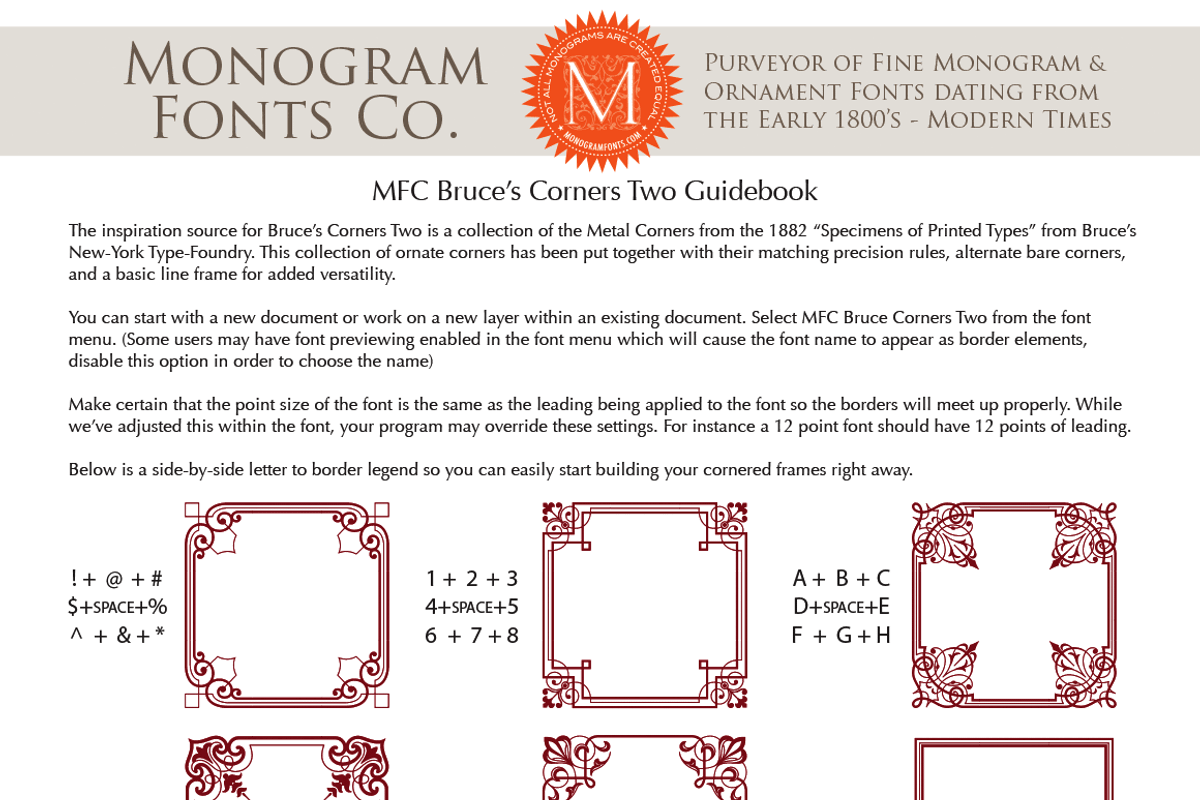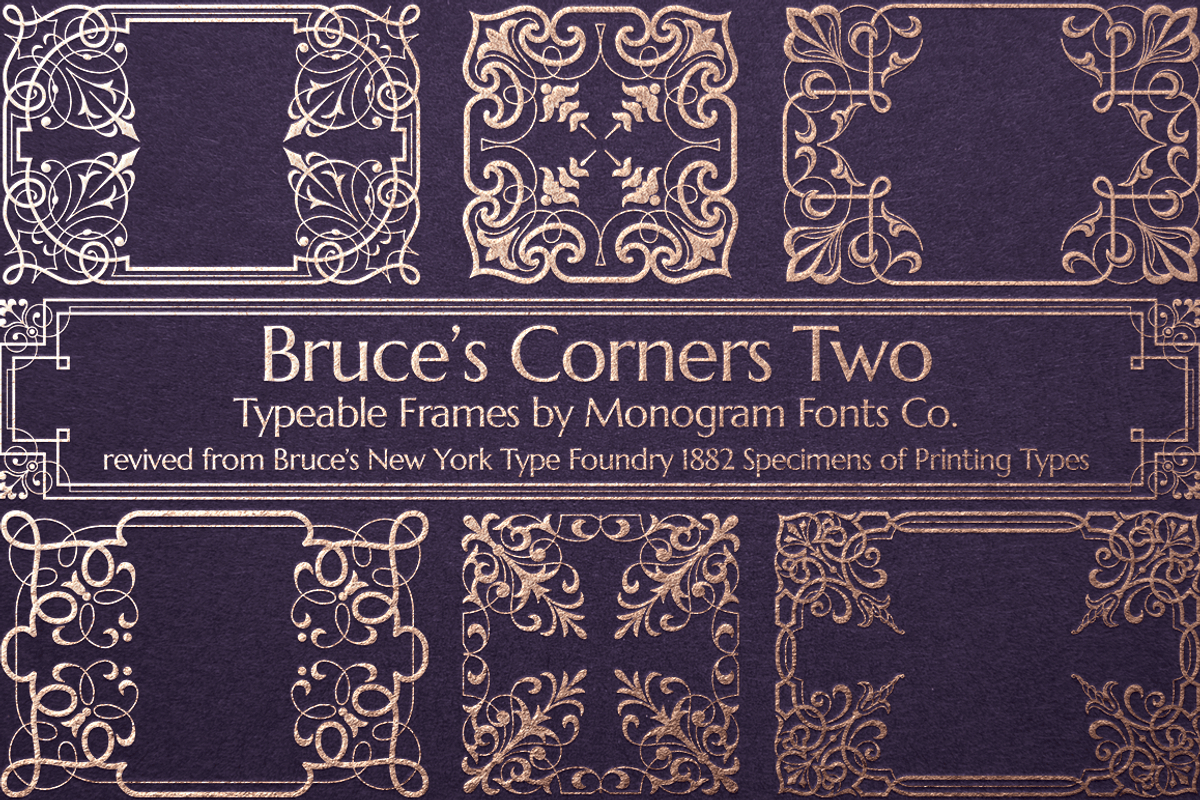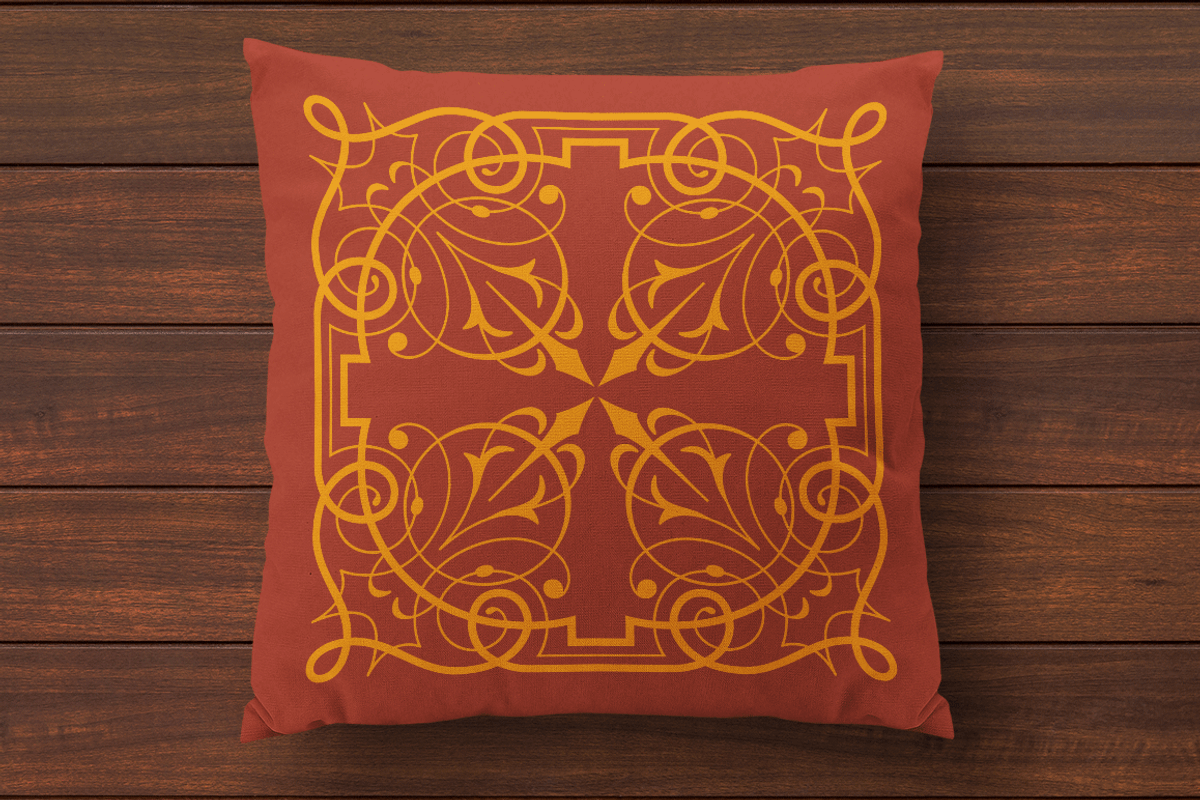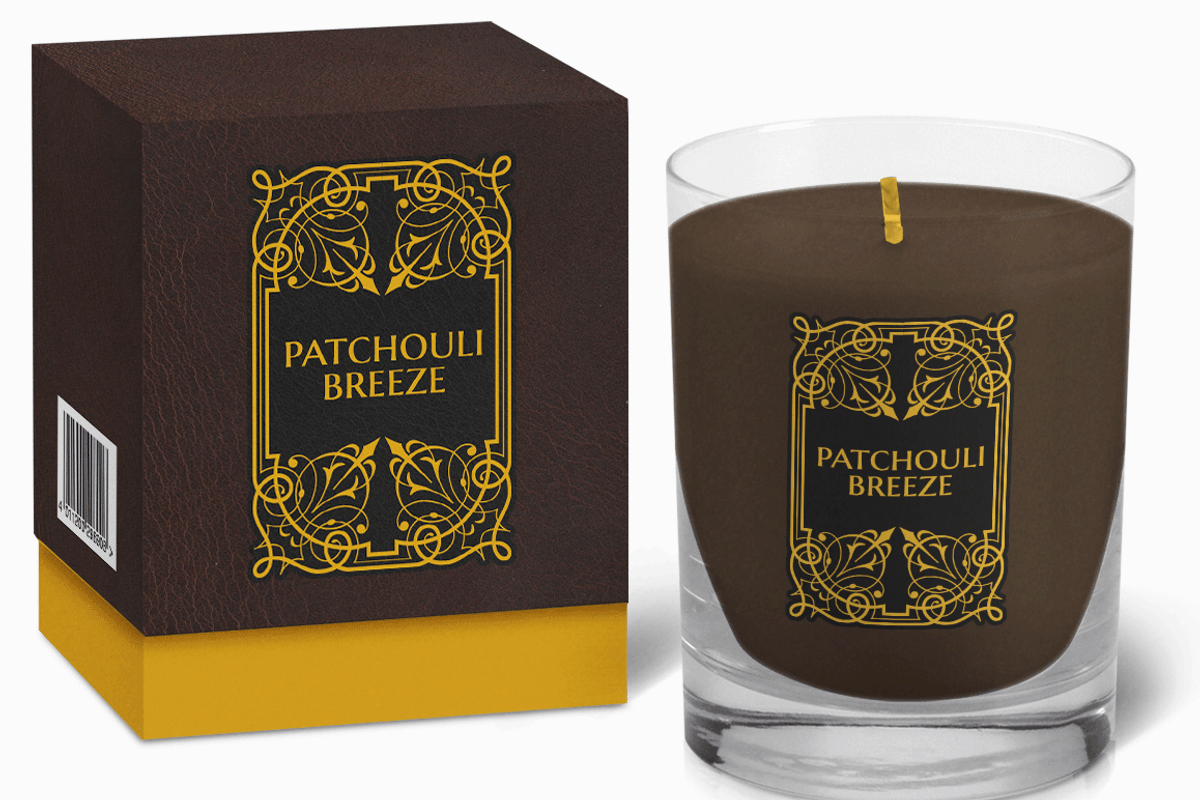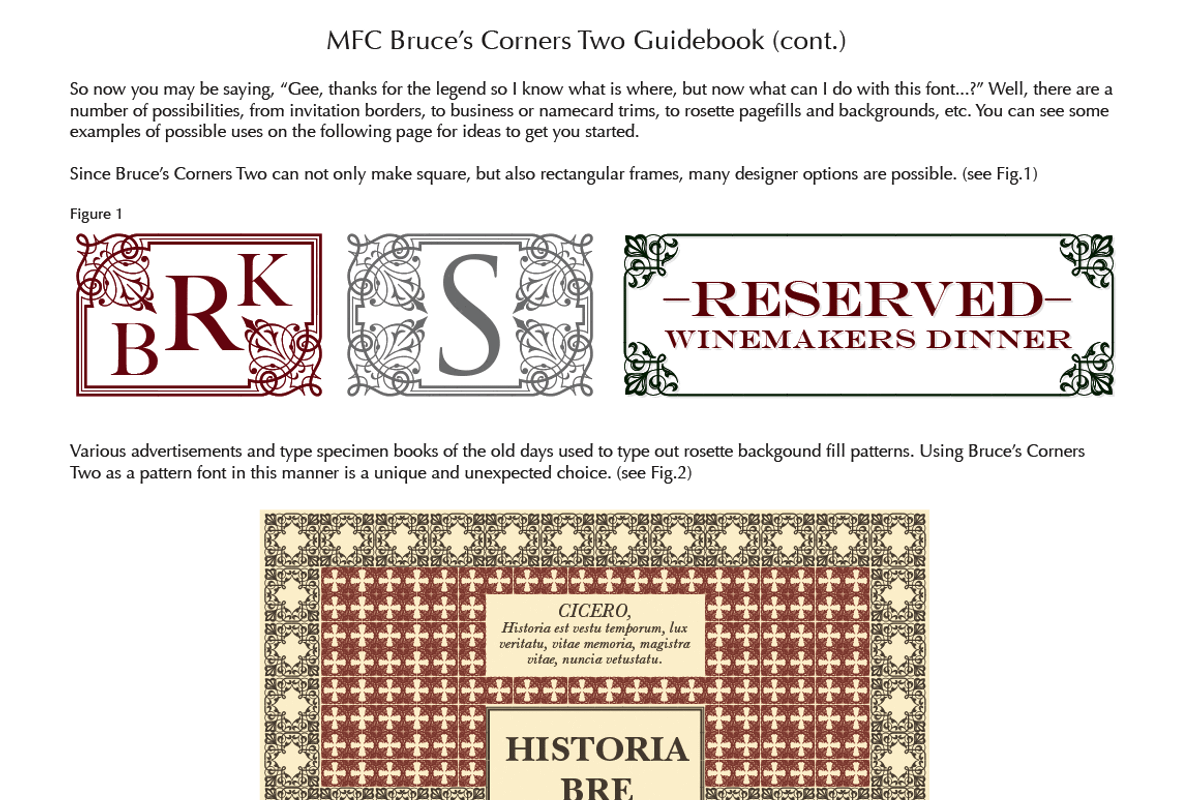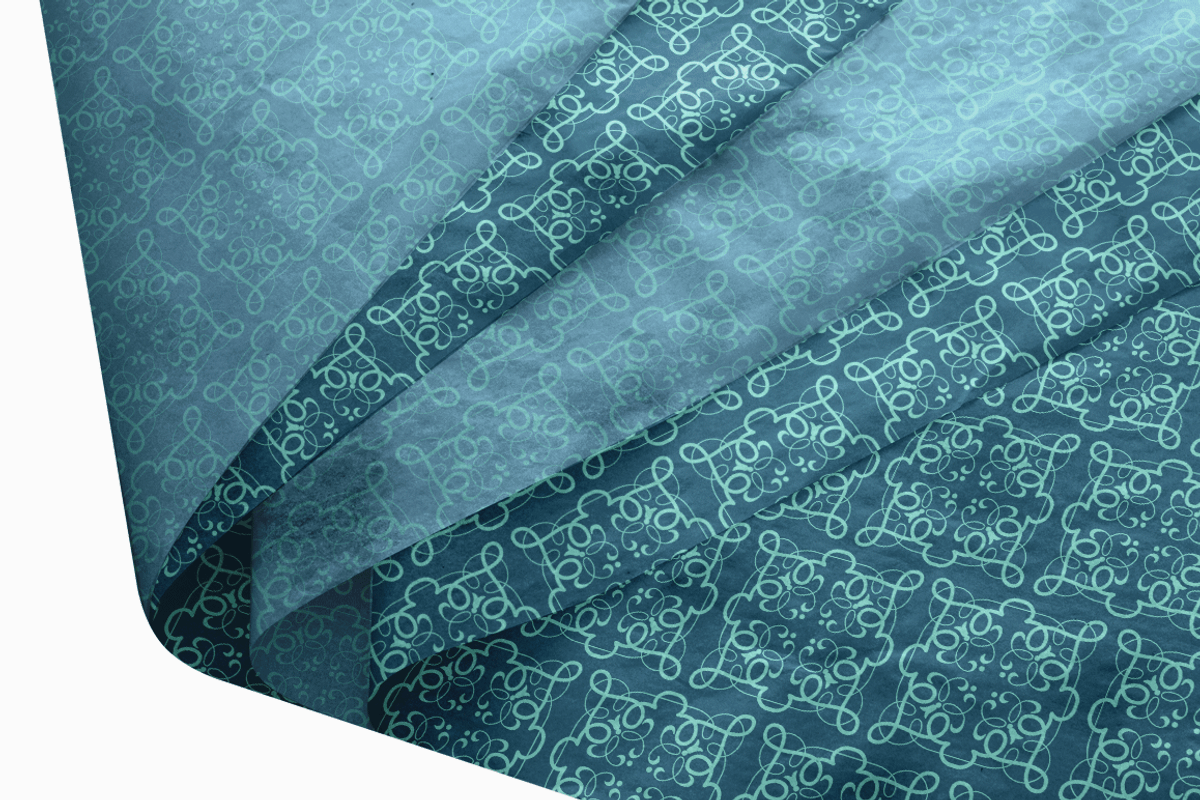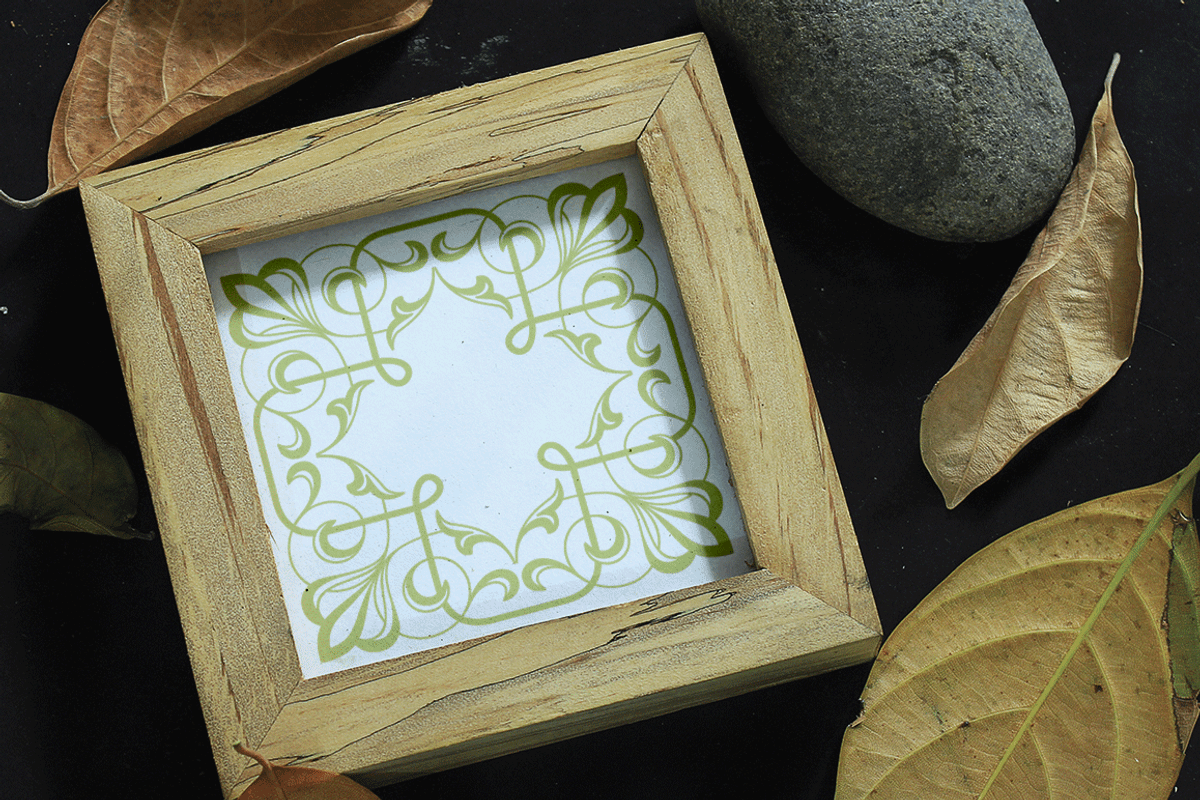
MFC Bruce's Corners Two
MFC Bruce's Corners Two by Monogram Fonts Co. is a font selected for branding, posters, packaging, typography.
- This collection of ornate corners has been put together with their matching precision rules, alternate bare corners, and a basic line frame
MFC Bruce's Corners Two by Monogram Fonts Co. fits naturally into Branding, posters, packaging, typography.